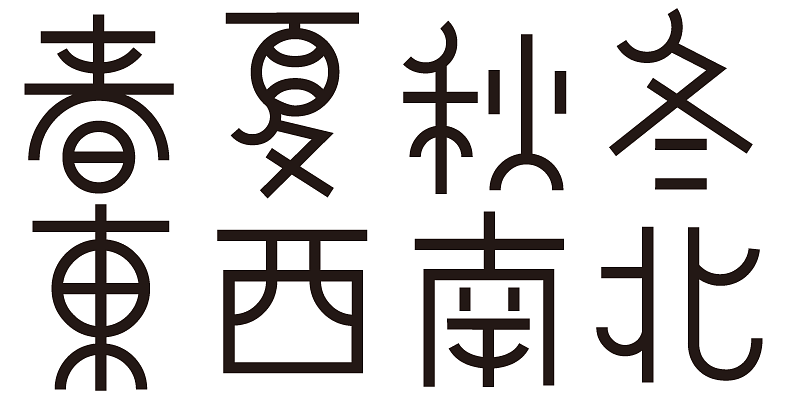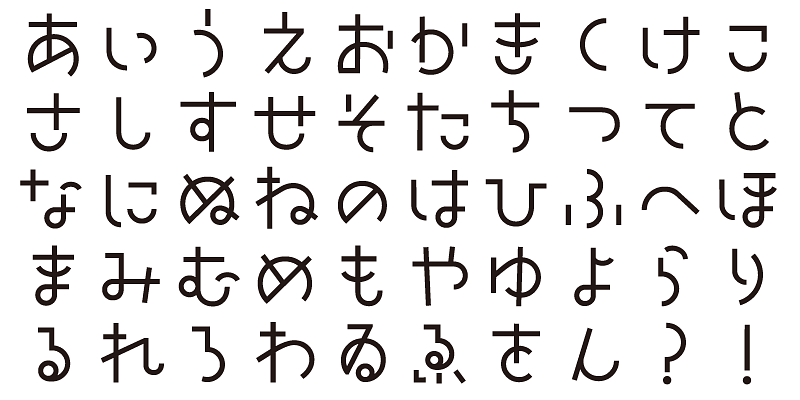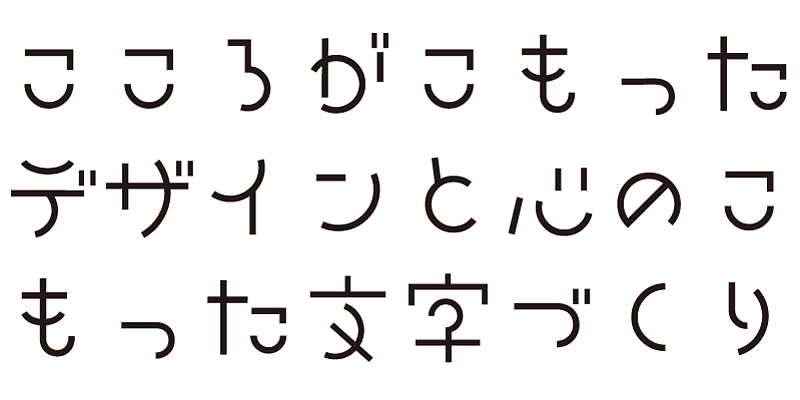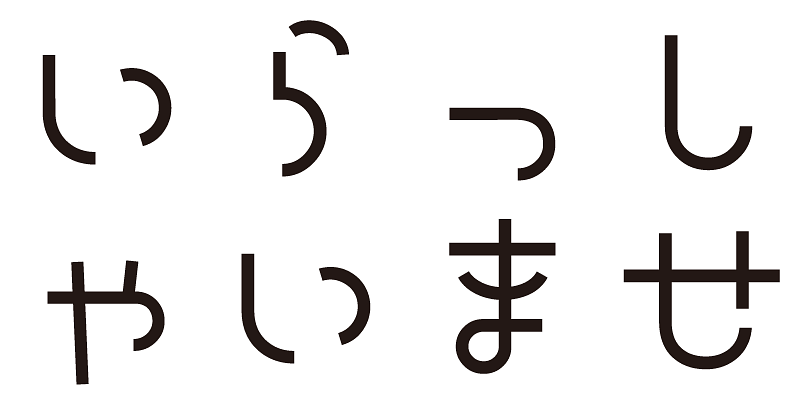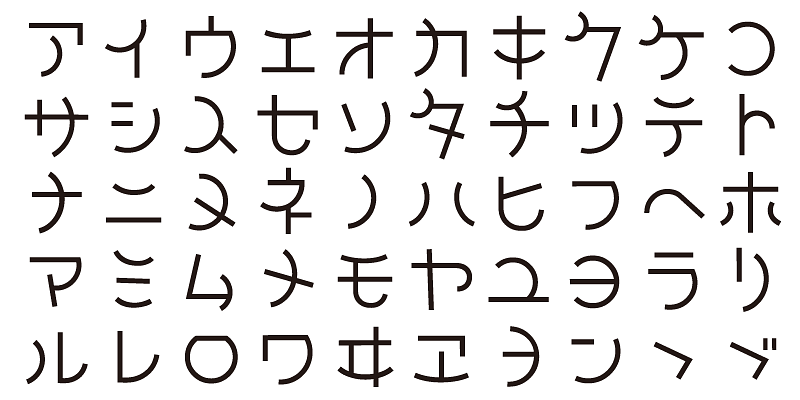
Joyful, playful, and comical; this typeface brings humor to life through its simple geometry of straight lines and arcs.
This font includes top 1,000 kanji characters chosen from character frequency tables made by newspaper companies, publishing houses and linguistic research institutes, plus about 400 alphanumeric, kana characters and punctuation marks.
We design typefaces with the hope that they will add underlying meaning to words expressed. We wish the user to feel good and experience comfort and joy when using these typefaces.